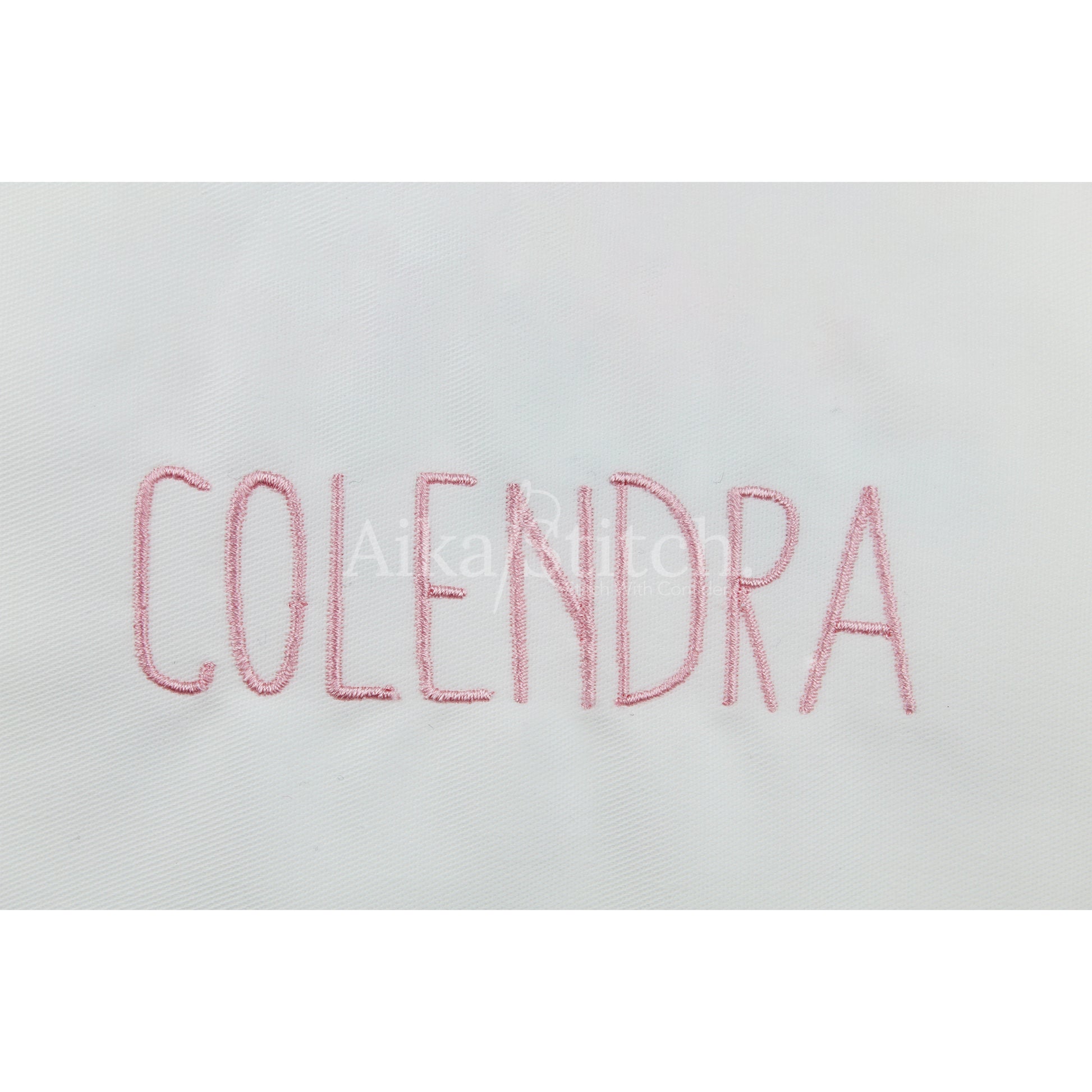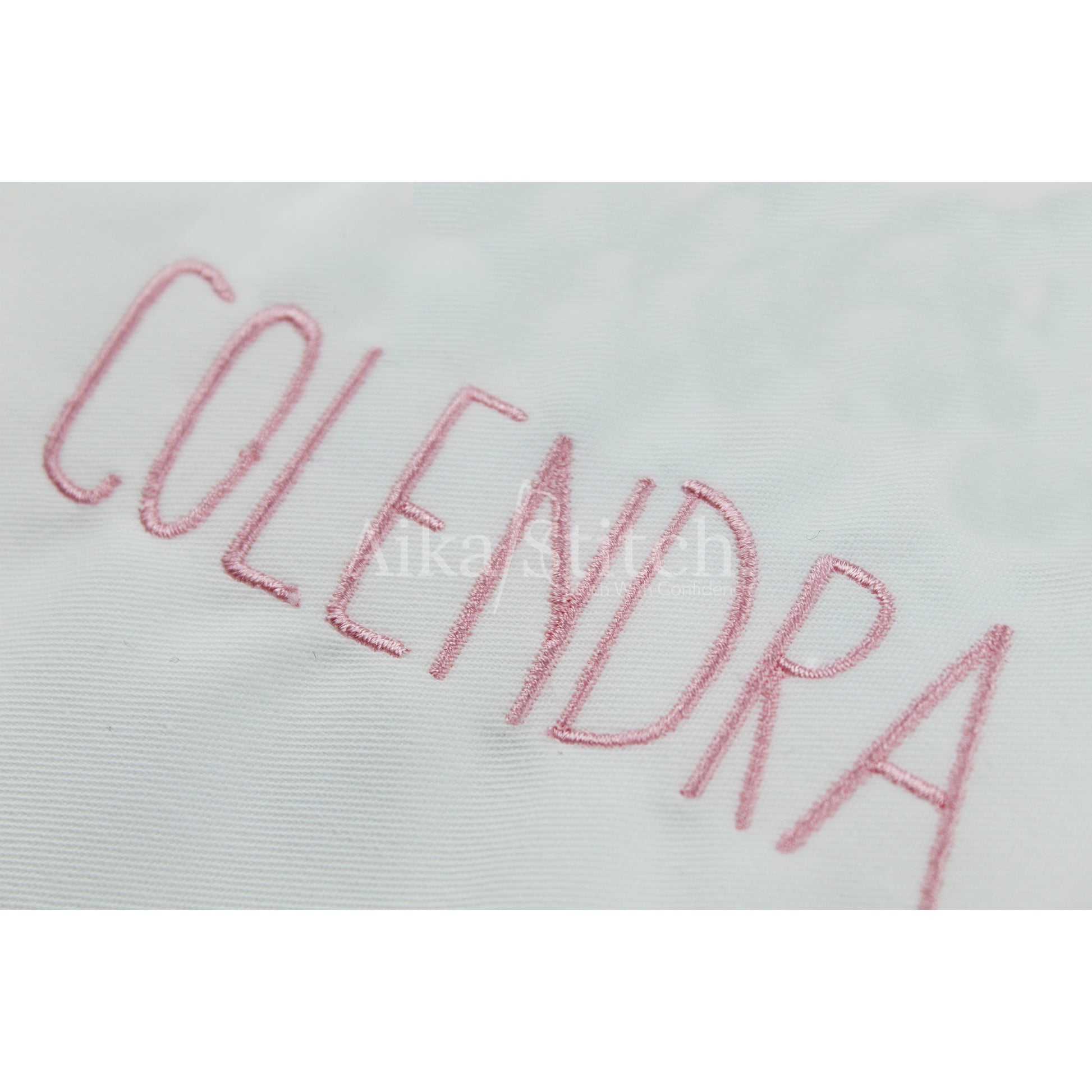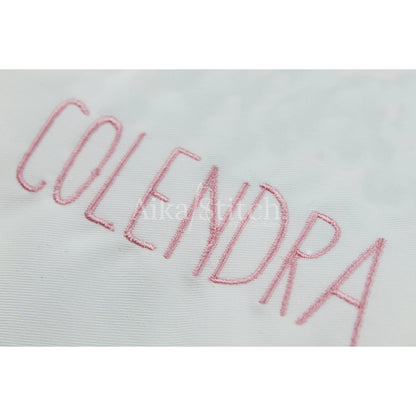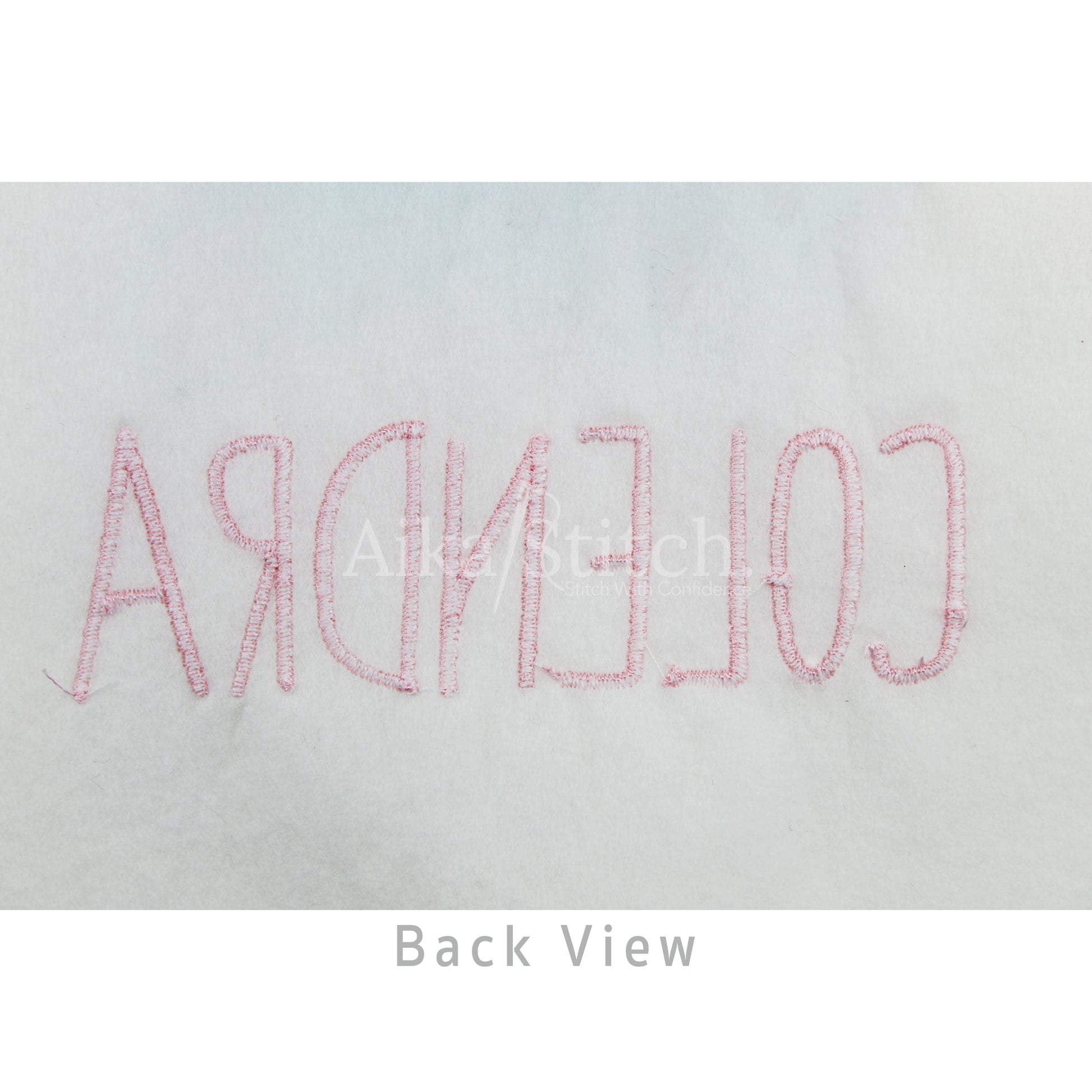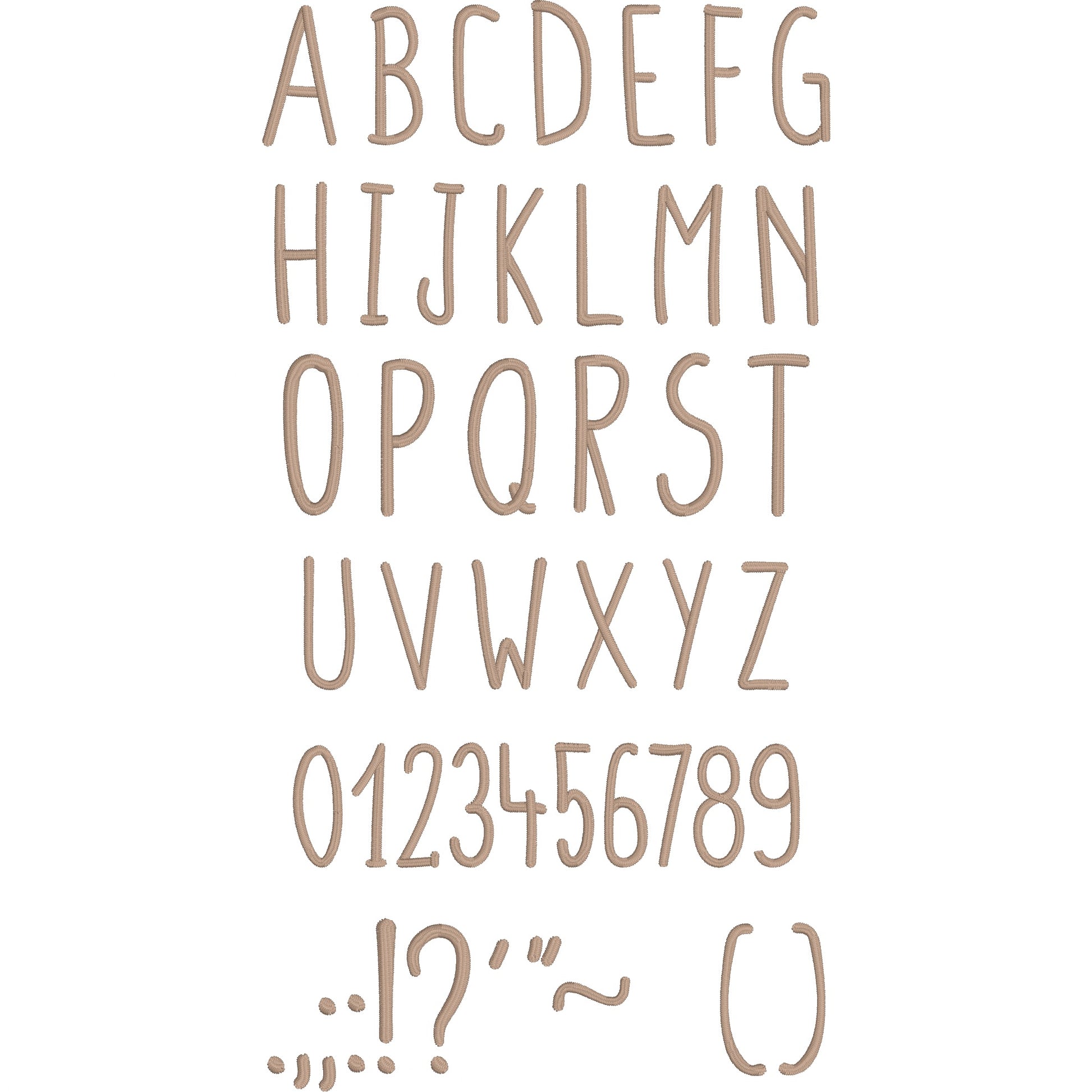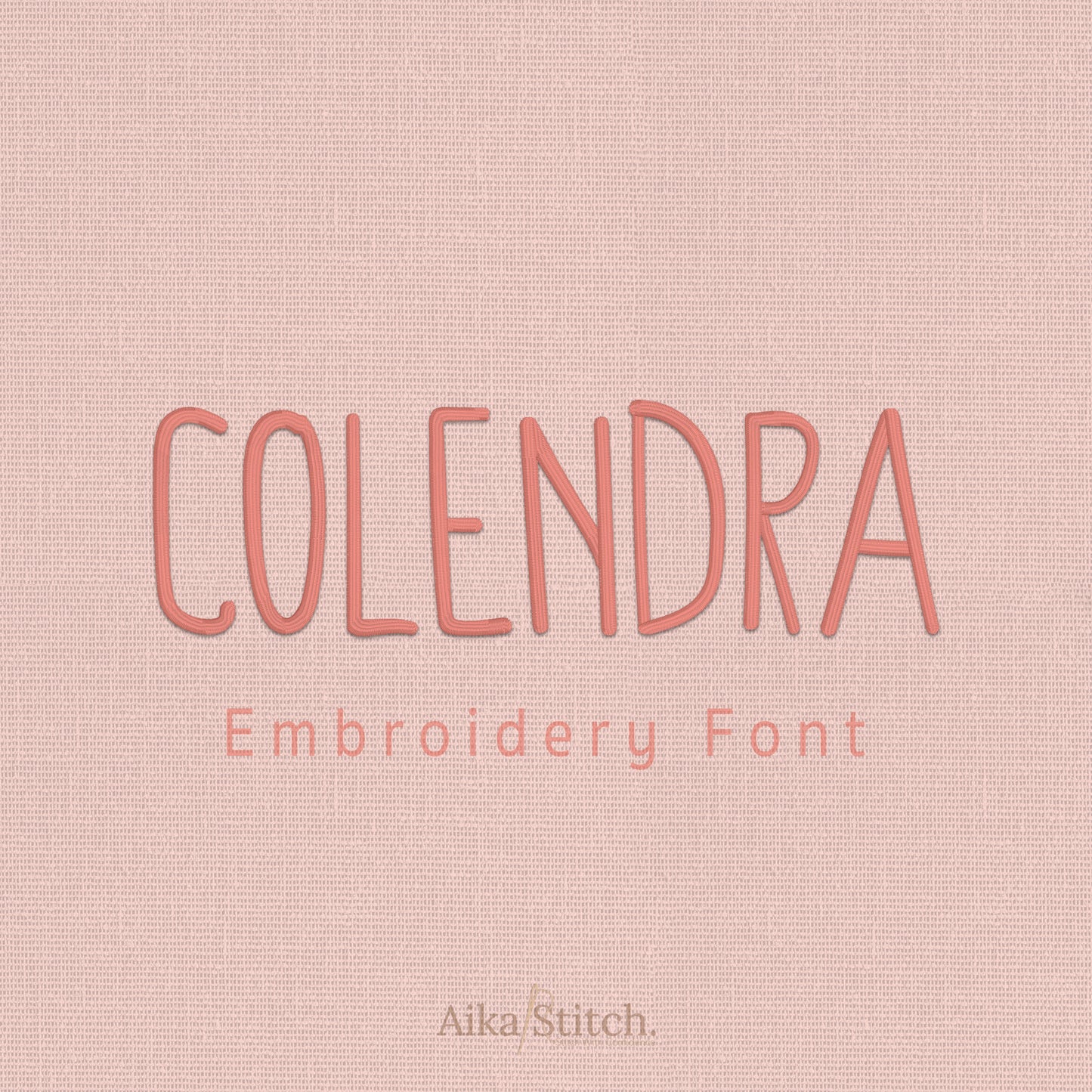
Colendra Handwritten Script Embroidery Font
Colendra is a Handwritten Script machine embroidery font featuring beautiful satin stitch lettering. Perfect for shirts, towels, hats, baby gifts, monograms, and small business embroidery projects.